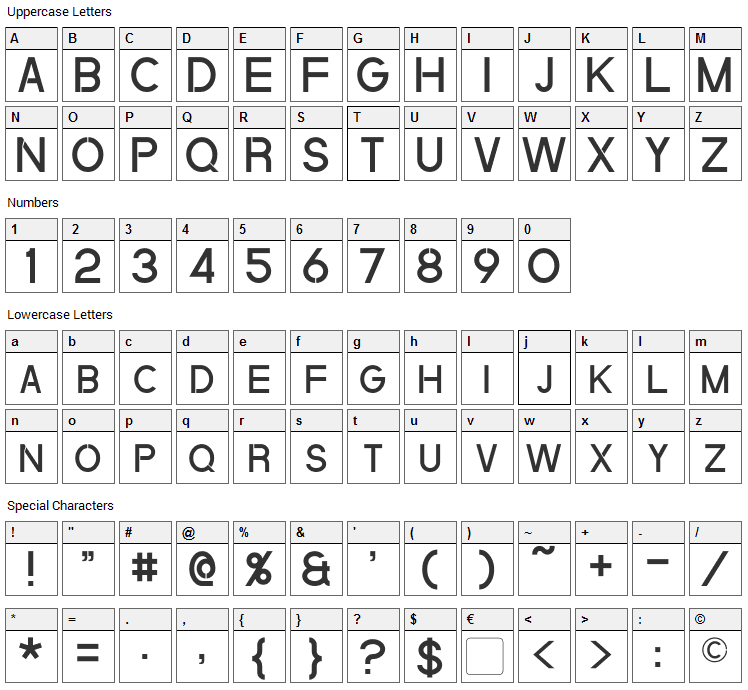
Quantum Font
This simple, 'classic-sans' typeface is based on the title credits of the James Bond movie "Quantum of Solace". Includes full alphabet, extended punctuation, Euro. Includes italic version.